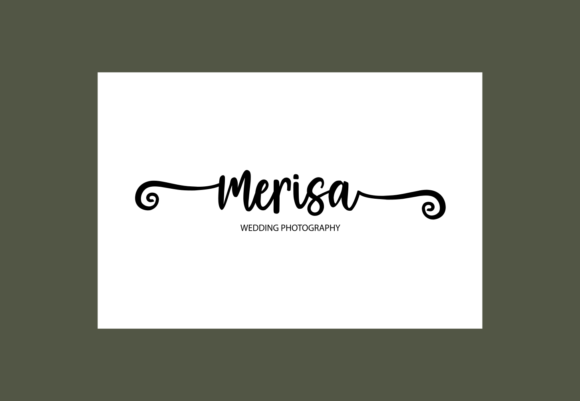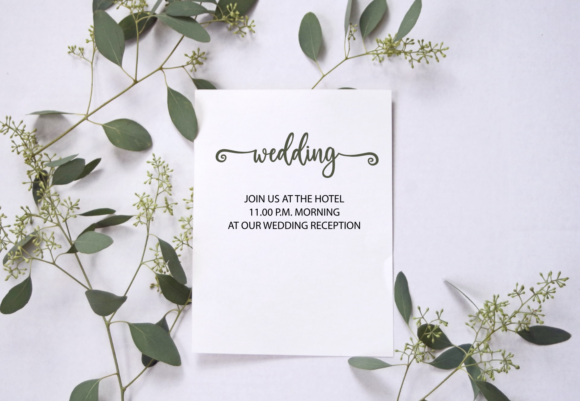
Amelia Font
db-ku.com - Script & Handwritten -- Amelia is a sweet, romantic and beautiful script font. It features neat curves in every letter. Fall for its ravishing style and use it to create gorgeous wedding invitations, beautiful stationary art, eye-catching social media posts, and much more!